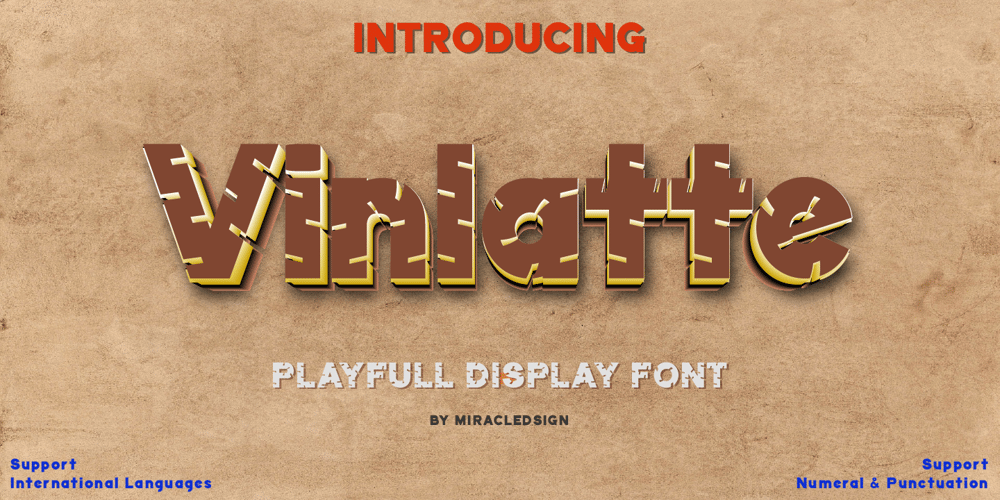
Vinlatte Font Family was designed by Anton Septiawan and published by Miracledsign. Vinlatte contains 2 styles and family package options. Vinlatte is a font inspired by the uniqueness of a cake topping by giving a hollow accent and arranged in such a way that makes Vinlatte very elegant and classic with a style that displays a uniqueness in each character of the letter.Vinlatte is shaped and made by combining the contours and anatomy of regular letters in general as a strong base and modified by giving a cavity accent so that it has a unique value and when used in a template, poster, cake advertisement, children’s magazine and of course it will be very interesting for them. . who see it and will definitely make the product look more attractive, unique and will bring the soul to your product and of course add to the selling value of your product.